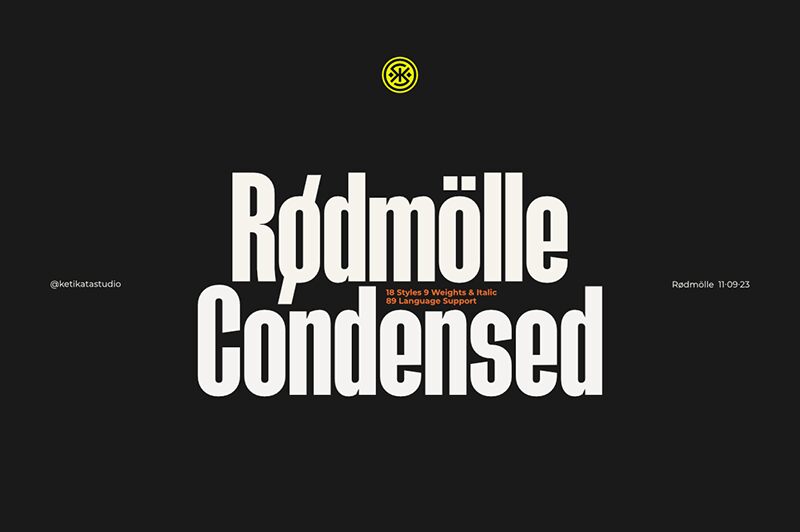
Rodmolle Condensed font family by Ketikata Studio is a free sans serif font family that encompasses sweeping curved lines in a clean and minimalistic design. It comes in a high-quality aesthetic with each letter being polished and clear, suiting modern art and styles. It can be described as minimalist, contemporary, and professional.
Rodmolle Condensed is the right choice to meet various branding and design needs. It adds a professional and modern touch to logo design, advertising, poster design, headings, and subheadings. Moreover, it serves well in non-commercial projects as well, such as portfolios, CVs, and students’ presentations.